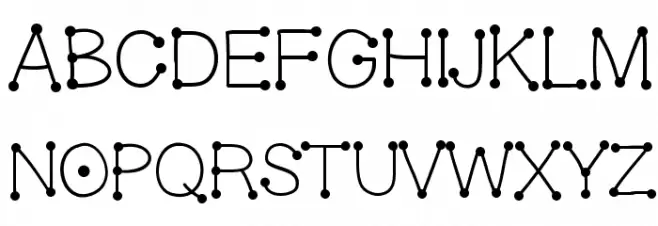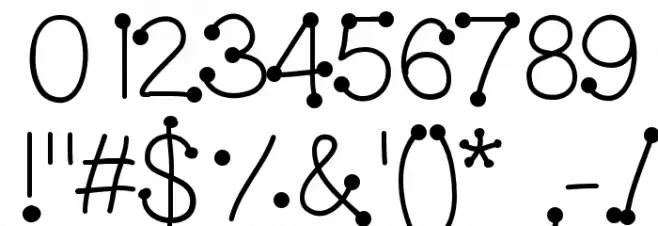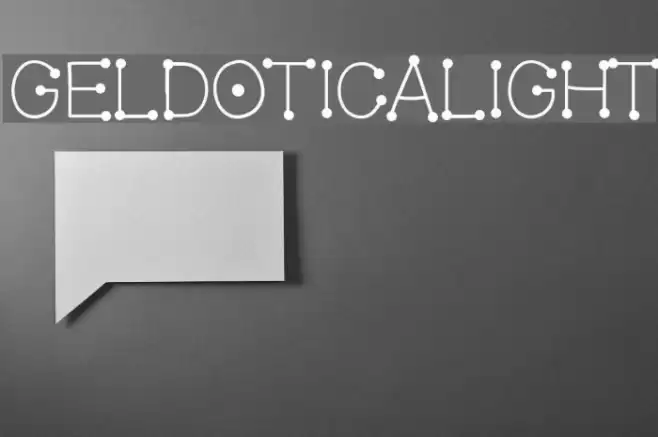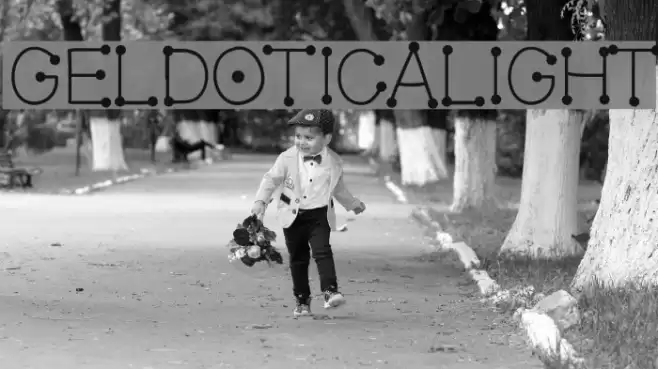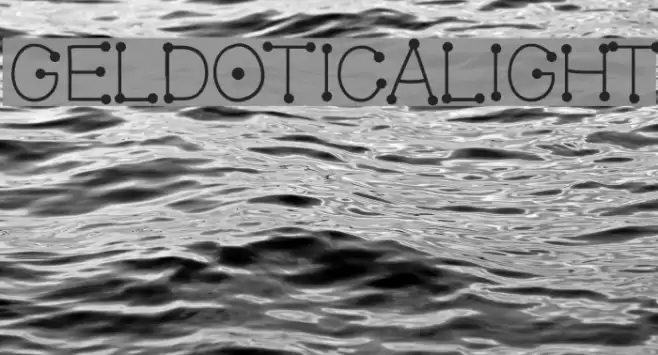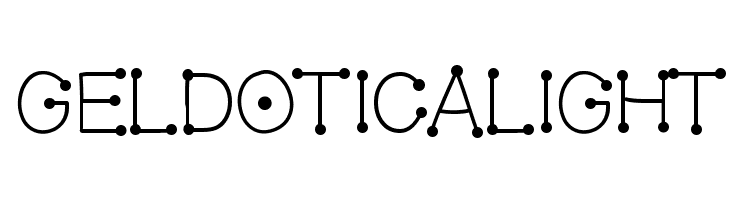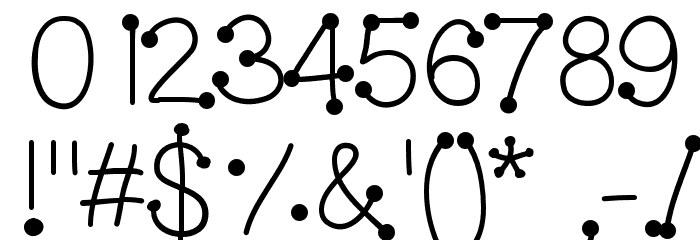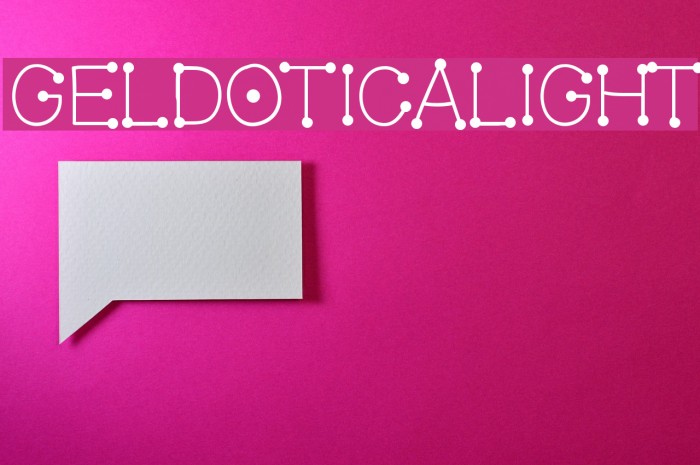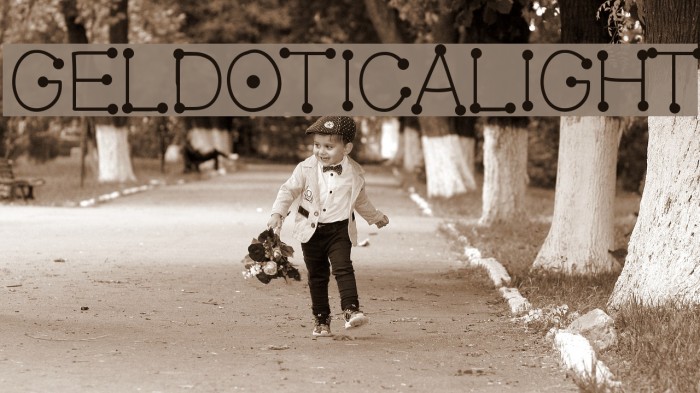
GelDoticaLight
This font features a playful and unique design, characterized by its dotted elements connecting each stroke. The letters are rounded and evenly spaced, giving it a whimsical and approachable appearance. The dots add a decorative touch, making it stand out as a display font. It maintains a consistent stroke width throughout, ensuring readability while still being visually interesting. The font includes both uppercase and lowercase letters, numerals, and a variety of special characters, all designed with the same dotted motif. Its distinct style makes it suitable for creative and informal projects.
A playful, dotted font with rounded letters and consistent stroke width.
- Proposed Projects: Ideal for children's books, playful branding, event invitations, and creative posters.
- Weight: Light
- Overall Style: Playful